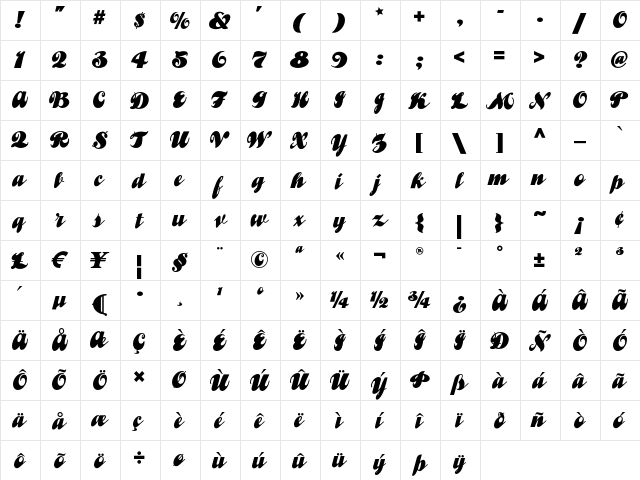
Funky Chunk NF Regular
Design Context for Funky Chunk NF Typeface
Funky Chunk NF has an approachable, lighthearted character — its loose, expressive forms are well-suited to children's content, casual branding, and fun-first design.
Great for children's books, toy packaging, family event branding, and casual consumer-facing design.
Font Pairing: Pairs well with a rounded or humanist sans for body copy, maintaining the friendly tone without relying on Funky Chunk NF to carry extended reading.
Pro Tip: Avoid using Funky Chunk NF for long passages of text — it works best for headlines, labels, and short calls to action.